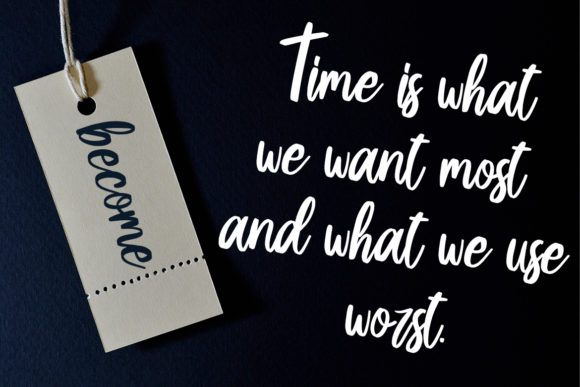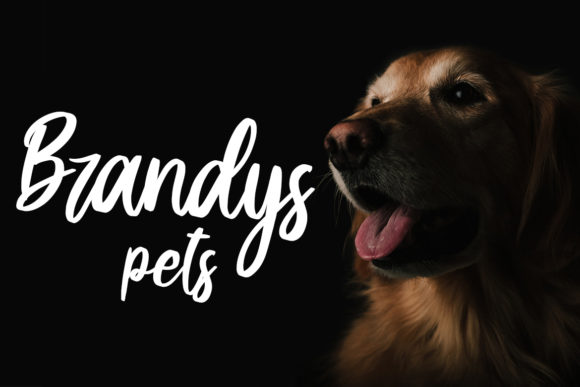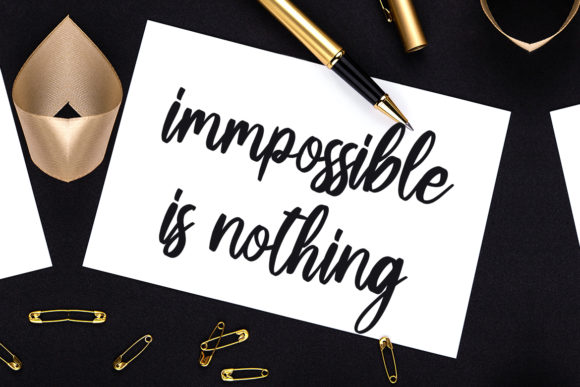
About Machity Font
Machity is a whimsical paint brushed handwritten font, featuring a nice flow. It can be used for various purposes such as logos, wedding invitations, headings, t-shirts, letterhead, signage, labels, news, posters, badges and so much more.